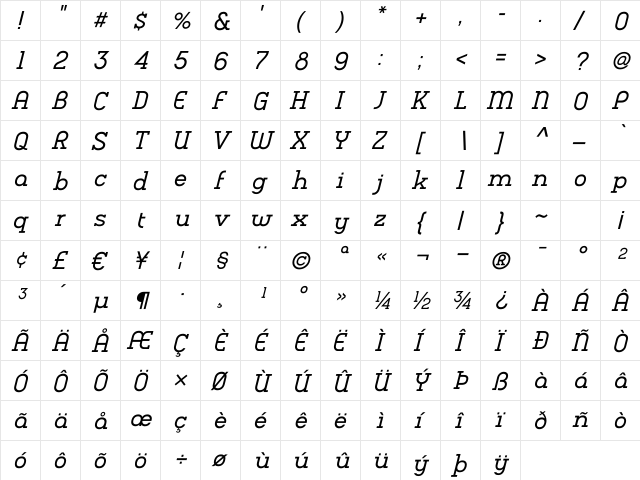
Charifa SerifRegular Oblique Regular
Design Context for Charifa SerifRegular Oblique Typeface
Charifa SerifRegular Oblique brings classic typographic sensibility to the table — its serifs and measured letterforms reflect centuries of print heritage. The slanted form adds forward momentum and visual energy.
Pro Tip: Set Charifa SerifRegular Oblique with slightly loose tracking in headlines to let each letterform's detail read clearly at display sizes.